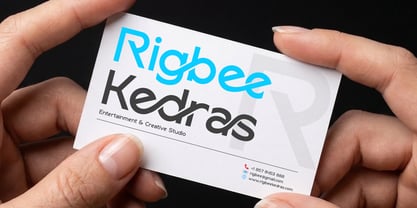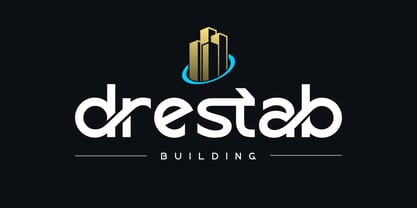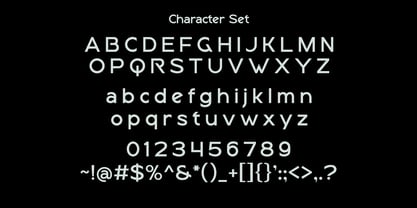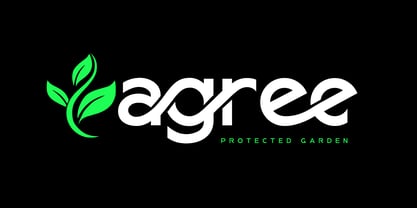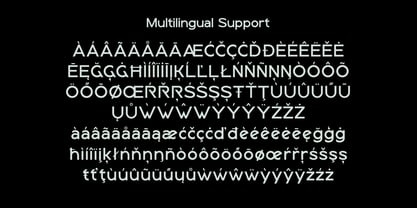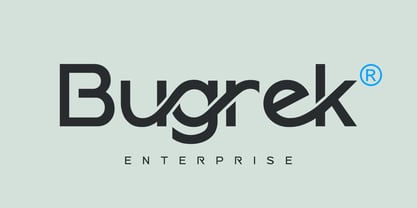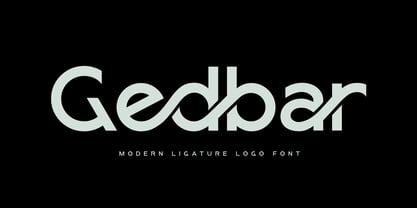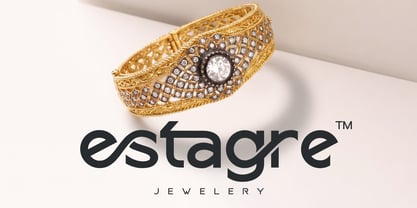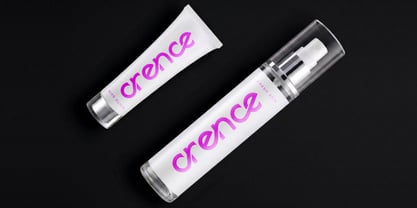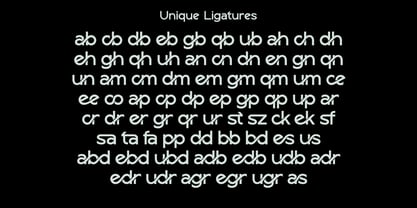
Gedbar
The Gedbar Font Family was designed by Saiful Anwar and published by Sealoung. Gedbar contains 1 styles. More about this family
Introducing Gedbar, a striking and modern typeface crafted to strengthen your brand identity. With its clean structure and bold personality, Gedbar is built to create visuals that instantly capture attention. Gedbar Font Features: Strong Visual Presence Designed to deliver impactful and memorable branding that stands out effortlessly. Refined Modern Look A balanced blend of contemporary design and subtle artistic detail, giving your work a clean and polished appearance. Flexible Usage Perfect for logos, headlines, posters, and various creative design projects. Distinctive Ligatures Enriched with unique ligature combinations that add character and originality to your typography. Clean and Stylish Design Minimal yet expressive, offering a sleek visual appeal with a modern edge. Gedbar is designed to bring clarity, strength, and style into every project. Whether used for branding or creative layouts, it delivers a bold and refined impression that enhances your overall design.
My name is Saiful Anwar, We live in Mojokerto, Indonesia. We started my type foundry studio called Sealoung Studio in 2020. Sealoung is a Type Design Studio that makes unique fonts for your business purpose. We are always interested and focused on aesthetics, functionality, legibility, suitable for branding and broad design purposes. When creating a font, we usually start by exploring the characters first. Most of the time we draft letters by drawing them until it gets a character that has a deep personality. His works span a variety of styles and themes and have been trusted by major, local and international companies. Let's be a friend and follow us to get our products updates. Thank You!